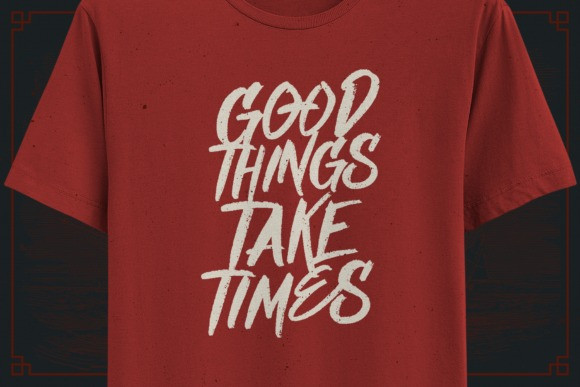
Nielsen Brush Font
Nielsen Rough is an equally elegant and authentic script font. It will look gorgeous on greeting cards, branding materials, business cards, quotes, posters, and much more!